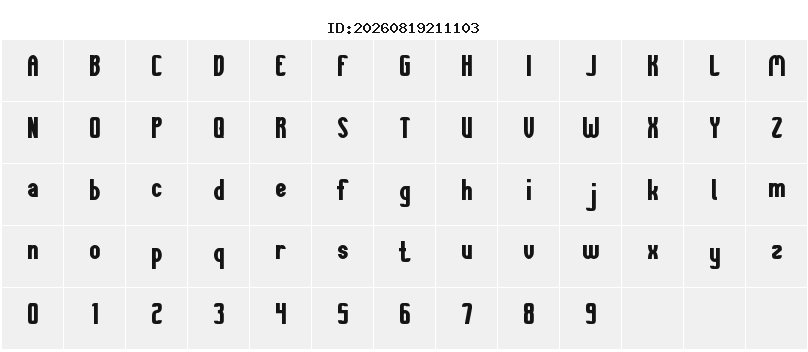
She Is Beautiful Preview
• Font Name: She Is Beautiful
• Full Font Name: She Is Beautiful
• Version: Version 1.00 June 4, 2014, initial release
About She Is Beautiful.ttf
She Is Beautiful.ttf is a modern, elegant sans-serif font designed for ultimate readability and visual harmony. Perfect for branding, headlines, web design, and print materials.